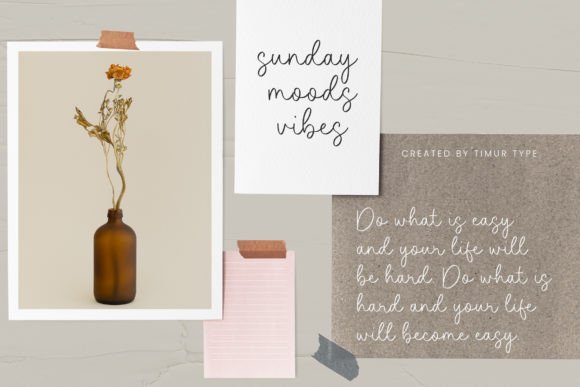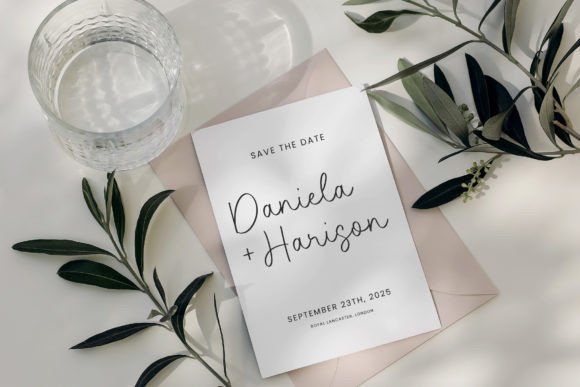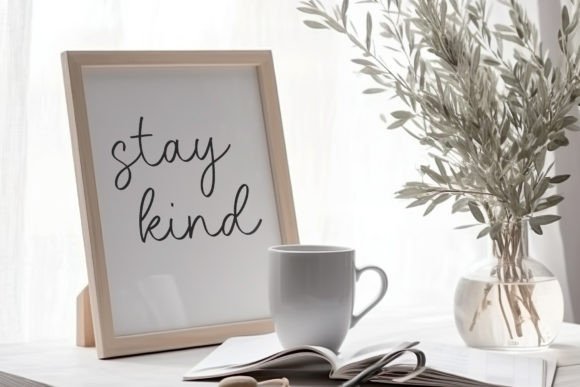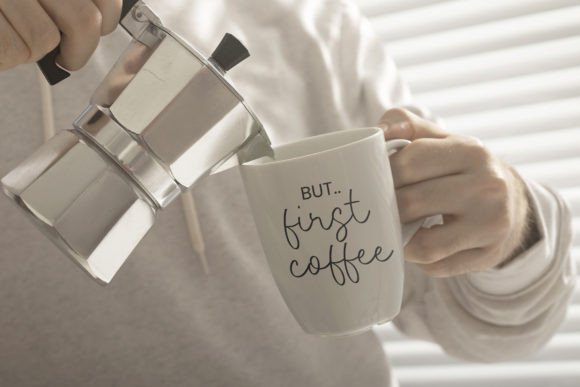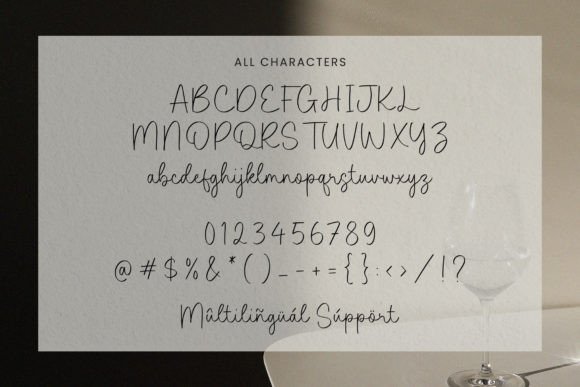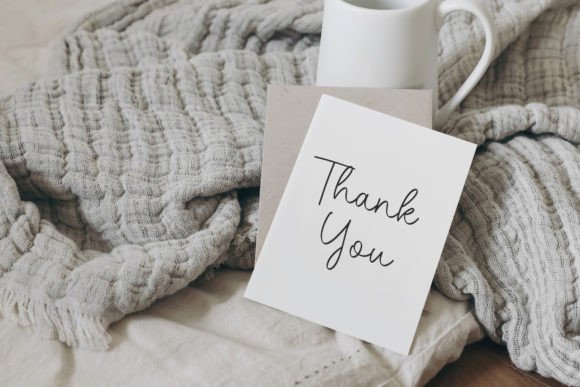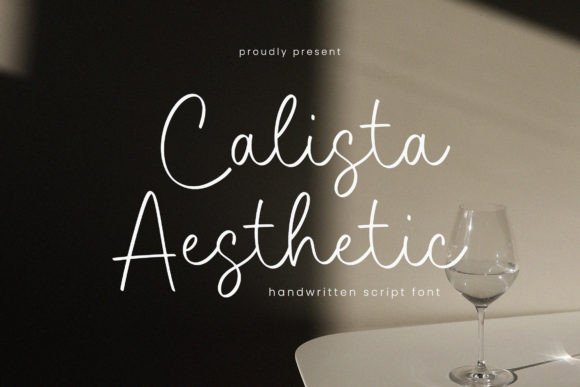
Introducing Calistha Aesthetic: The Elegant Handwritten Script Font for Creative Projects
Are you a designer, crafty entrepreneur, or creative enthusiast looking for a font that exudes elegance and sophistication? Look no further than Calistha Aesthetic, a beautiful handwritten script font perfect for a wide range of creative projects. In this article, we’ll dive into the world of Calistha Aesthetic, exploring its features, uses, and benefits for designers, crafters, and businesses.
What is Calistha Aesthetic?
Calistha Aesthetic is an elegant handwritten script font designed to add a touch of luxury and refinement to any project. Its flowing lines, delicate curves, and intricate details make it perfect for creating visually stunning designs that capture attention and evoke emotions. Whether you’re working on product packaging, branding projects, magazines, social media graphics, wedding invitations, or greeting cards, Calistha Aesthetic is the ideal choice.
Key Features of Calistha Aesthetic
- Elegant Handwritten Script: Calistha Aesthetic boasts a beautiful, handwritten script style that adds a personal touch to any design.
- Versatile: This font is suitable for a wide range of creative projects, from product packaging and branding to weddings and social media graphics.
- Highly Readable: Despite its elegant and cursive nature, Calistha Aesthetic remains highly readable, making it perfect for body text and headlines.
- Unique Character Set: The font features a unique character set, including uppercase and lowercase letters, numbers, and special characters.
Uses of Calistha Aesthetic
Calistha Aesthetic is an incredibly versatile font that can be used in various creative projects, including:
- Product Packaging: Add a touch of elegance to your product packaging with Calistha Aesthetic, perfect for luxury brands and high-end products.
- Branding Projects: Create a cohesive brand identity with Calistha Aesthetic, suitable for logos, business cards, and letterheads.
- Magazines and Blogs: Use Calistha Aesthetic as a headline or body font for magazines, blogs, and online publications.
- Social Media Graphics: Create stunning social media graphics, including Facebook and Instagram posts, with Calistha Aesthetic.
- Weddings and Events: Make your wedding invitations, cards, and event branding truly special with Calistha Aesthetic.
Benefits of Using Calistha Aesthetic
By incorporating Calistha Aesthetic into your creative projects, you’ll enjoy several benefits, including:
- Unique and Memorable Designs: Calistha Aesthetic helps you create unique and memorable designs that stand out from the crowd.
- Elegance and Sophistication: Add a touch of elegance and sophistication to your designs, perfect for luxury brands and high-end products.
- Time-Saving: With Calistha Aesthetic, you can create stunning designs quickly and efficiently, saving you time and effort.